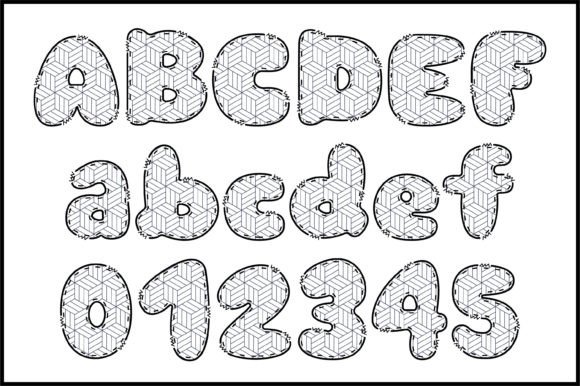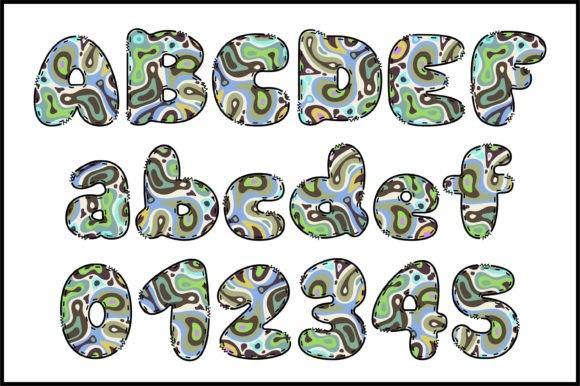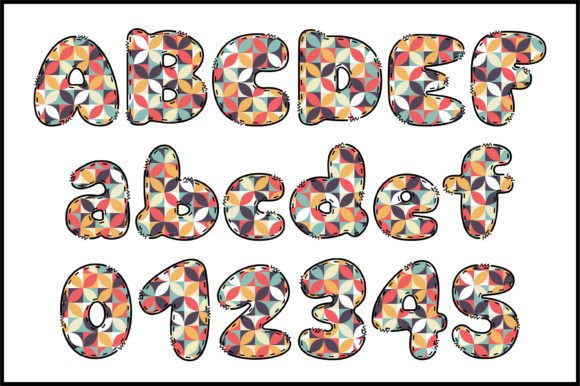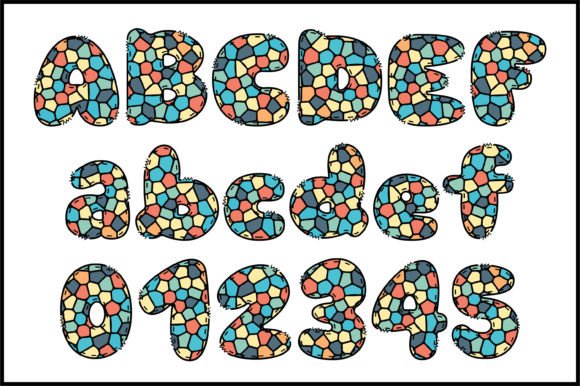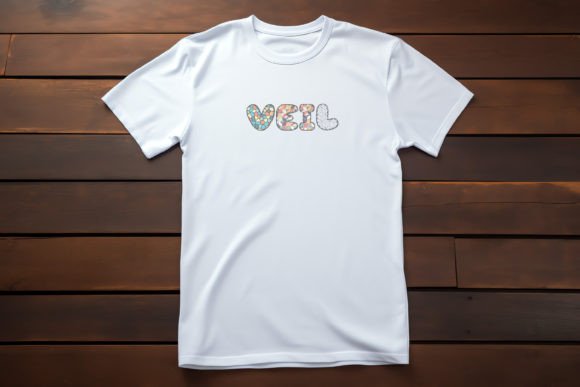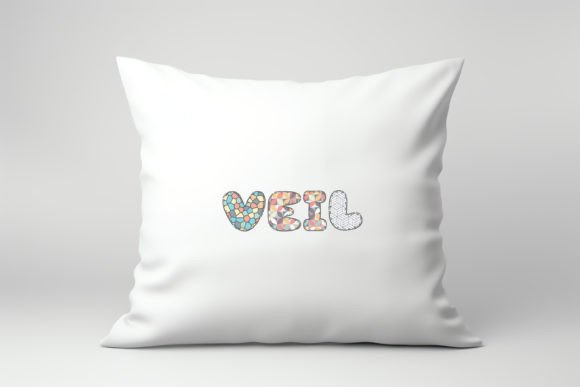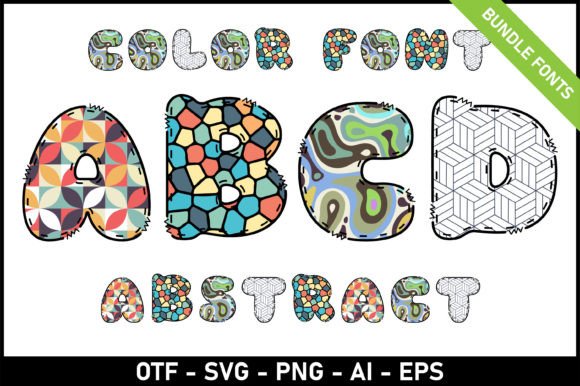
Introducing the Abstract Bundle Font: A Playful and Colorful Display Font
Are you tired of using the same old fonts for your designs and crafts? Look no further! The Abstract Bundle Font is here to add a touch of playfulness and authenticity to your projects. This collection of cute and colorful display fonts is perfect for any children activity or school project, and is sure to make your designs come alive.
What is the Abstract Bundle Font?
The Abstract Bundle Font is a unique and creative font bundle that features a range of chunky, lettered fonts. Each font in the bundle is carefully crafted to embody playfulness and authenticity, making it perfect for designs that require a fun and youthful touch. Whether you’re creating posters, flyers, or social media graphics, this font bundle is sure to add a pop of personality to your work.
Key Features of the Abstract Bundle Font
- Cute and Colorful: The Abstract Bundle Font features a range of bright and bold colors that are sure to catch the eye.
- Chunky Lettering: The fonts in this bundle feature chunky, lettered designs that add a touch of playfulness to any project.
- Perfect for Kids: The Abstract Bundle Font is ideal for any children activity or school project, and is sure to delight kids of all ages.
- Authentic and Unique: This font bundle is carefully crafted to provide a unique and authentic look that will set your designs apart from the rest.
Why Choose the Abstract Bundle Font?
There are many reasons why the Abstract Bundle Font is the perfect choice for designers and crafters. Here are just a few:
- Adds a Touch of Personality: The Abstract Bundle Font adds a touch of personality and whimsy to any design, making it perfect for projects that require a bit of flair.
- Easy to Use: The fonts in this bundle are easy to use and can be easily integrated into any design or craft project.
- Versatile: The Abstract Bundle Font can be used for a wide range of projects, from posters and flyers to social media graphics and crafts.
- High-Quality: The fonts in this bundle are high-quality and carefully crafted to provide a professional finish.
How to Use the Abstract Bundle Font
Using the Abstract Bundle Font is easy! Here are a few tips to get you started:
- Pair with Other Fonts: Pair the Abstract Bundle Font with other fonts to create a unique and eye-catching design.
- Add to Your Designs: Add the Abstract Bundle Font to your designs to add a touch of playfulness and personality.
- Experiment with Colors: Experiment with different colors and combinations to find the perfect look for your project.
Who is the Abstract Bundle Font for?
The Abstract Bundle Font is perfect for:
- Designers: Graphic designers, digital artists, and anyone looking to add a touch of personality to their designs.
- Crafters: Crafters, scrapbookers, and anyone looking to add a unique and creative touch to their crafts.
- Teachers: Teachers, educators, and anyone looking for a fun and engaging font for their school projects.
The Abstract Bundle Font is a unique and creative font bundle that is perfect for designers and crafters looking to add a touch of playfulness and authenticity to their projects. With its cute and colorful designs, chunky lettering, and versatility, this font bundle is sure to make your designs come alive! So why wait? Download the Abstract Bundle Font today and start creating!